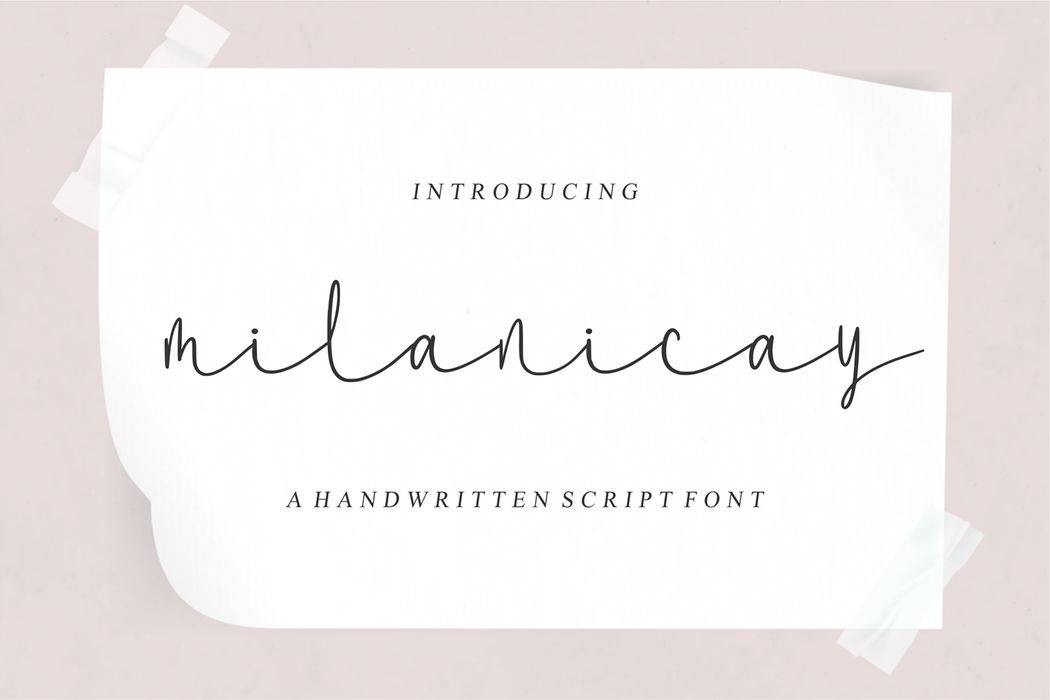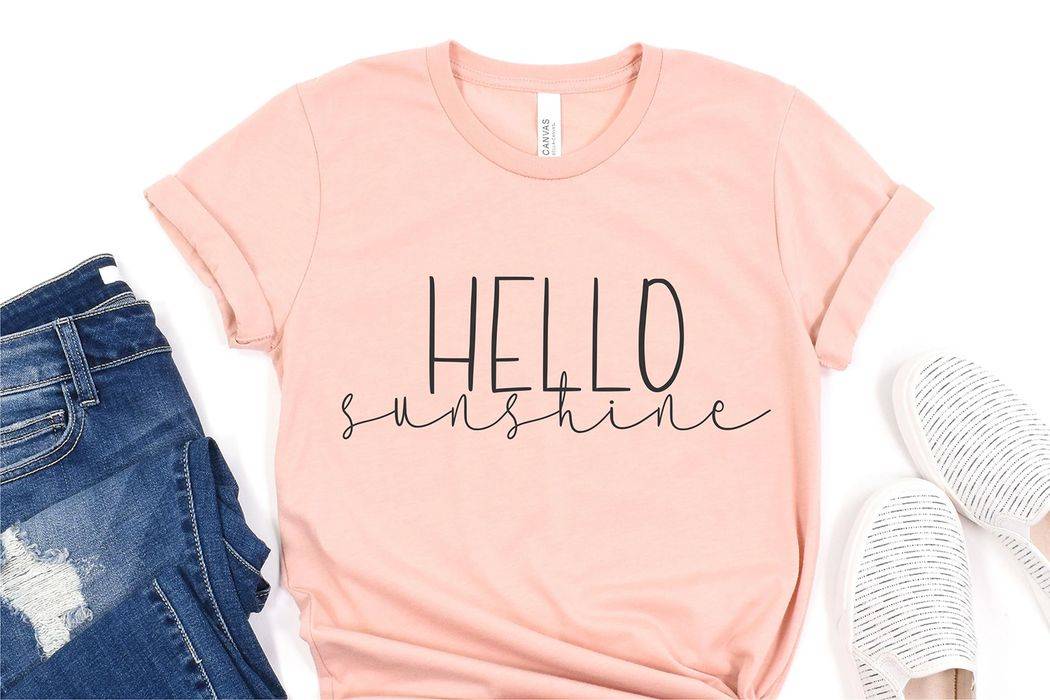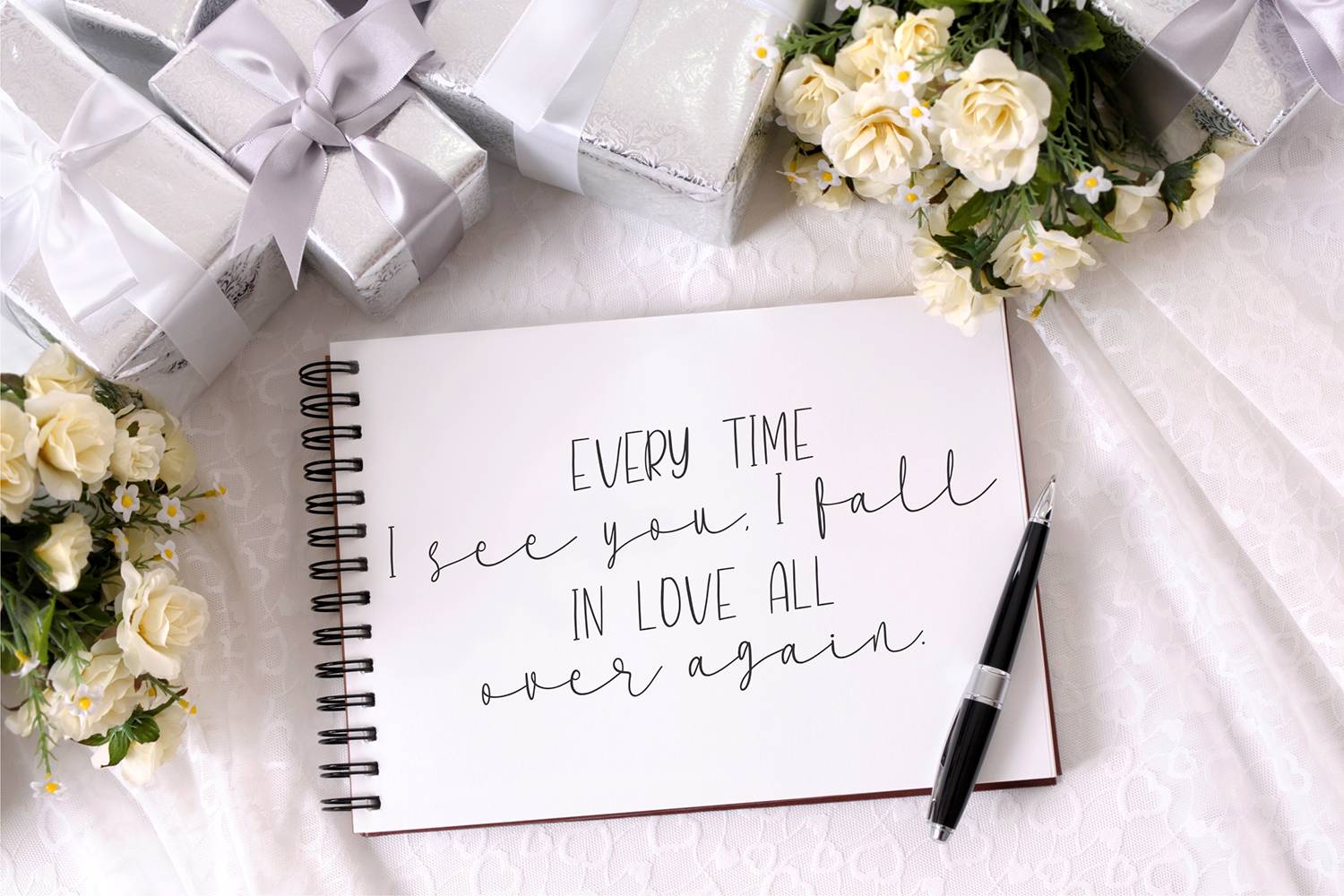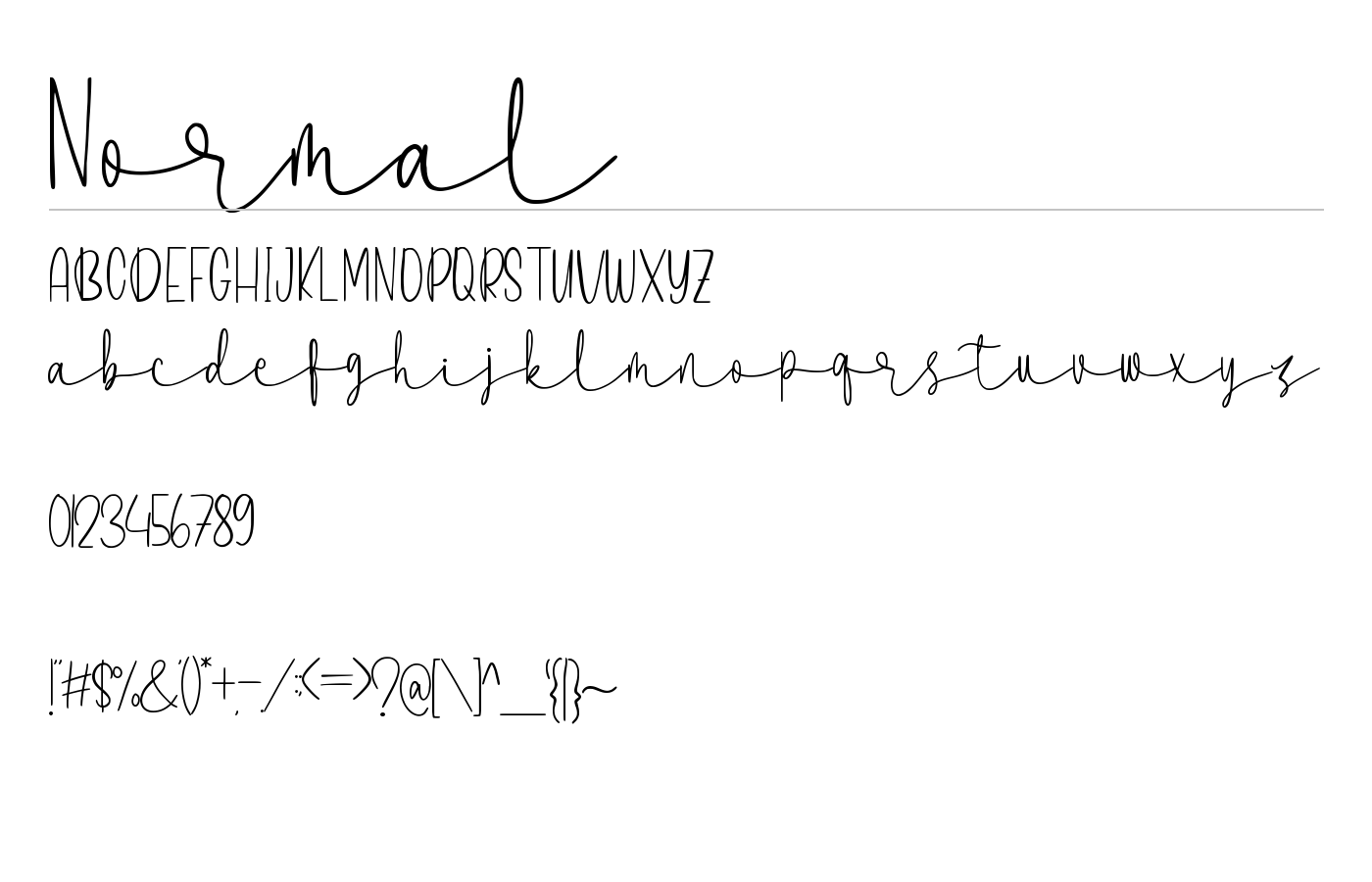
Milanicay is a delicate handwritten font with a light, airy feel and tall, narrow letterforms that give it an elegant and whimsical touch. Its thin strokes and fine details create a casual yet refined style perfect for creative projects, invitations, and branding that seeks a personal, artistic vibe. This font works well in designs that want to convey charm and sophistication with a modern, handwritten flair.
Milanicay Font
About Milanicay Font